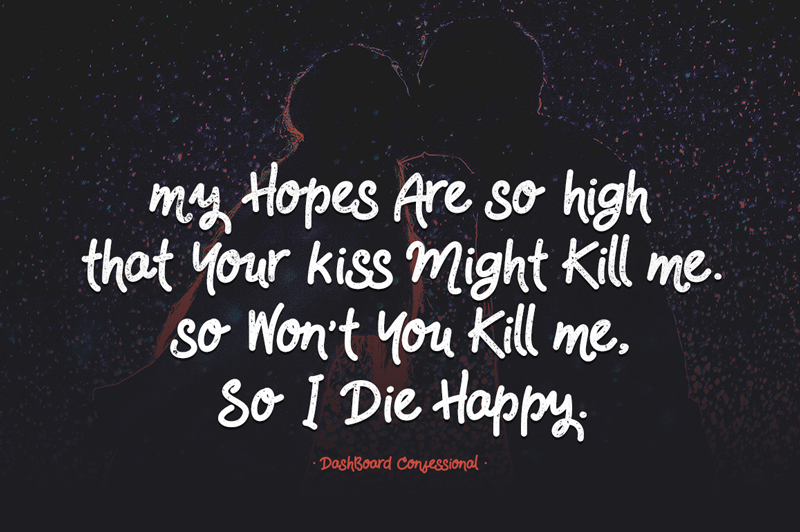
Font name: | HandsDown |
Author: | Aditya Putra |
Note by Aditya Putra | |
Handsdown named after my very fav song ever, Hands Down by Dashboard Confessional. Handmadely created on iPad with my finger. It�s so simple, it even has no alternates or ligatures. But already support for multilanguage characters. Just try it, you�ll love it ;) To find more premium fonts and freebies, please visit https://telllu.com Cheers! |